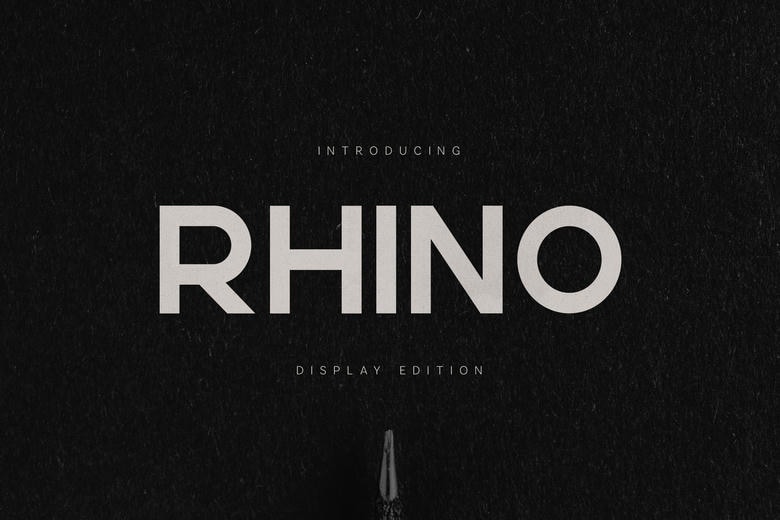
Rhino Font
RHINO is a bold sans serif modern display designed for power and self-assurance. With strong letterforms, clean geometry and strong proportions, RHINO is great for posters, headlines, branding, logos, packaging, editorial layouts, social media graphics and statement designing.
Created to be memorable, RHINO provides clarity and power at the same time with a minimal, modernistic look. It is ideal with big type given its boldness, powerful compositions, and contemporary visual identities. RHINO is designed to the typeface designers to be bold, structured and conspicuous in their types.
Rhino Sans Serif Font